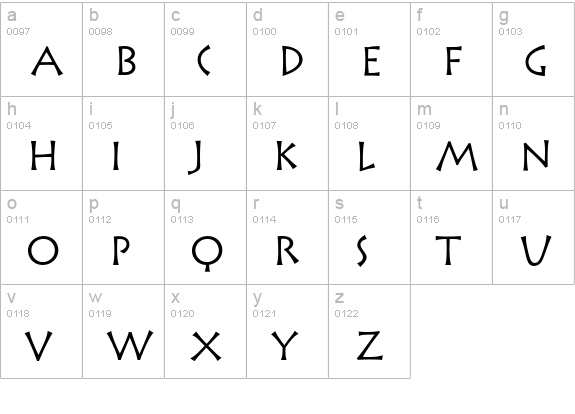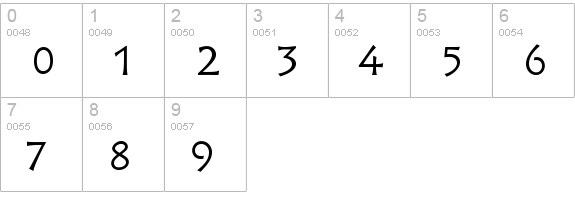
Rusticana Roman font is a stunning display typeface that exudes elegance and sophistication. With its classic serifs and timeless aesthetic, this font is perfect for adding a touch of charm to your designs. The graceful curves and clean lines of Rusticana Roman make it a versatile choice for a wide range of projects, from branding to invitations and beyond. The best part? Rusticana Roman is completely free to download at FontsMarket.com, making it accessible to all designers looking to elevate their work with a touch of vintage flair. Whether you're creating a wedding invitation, designing a logo, or crafting a poster, Rusticana Roman is sure to make a lasting impression. Download this exquisite font today and add a touch of timeless beauty to your designs.